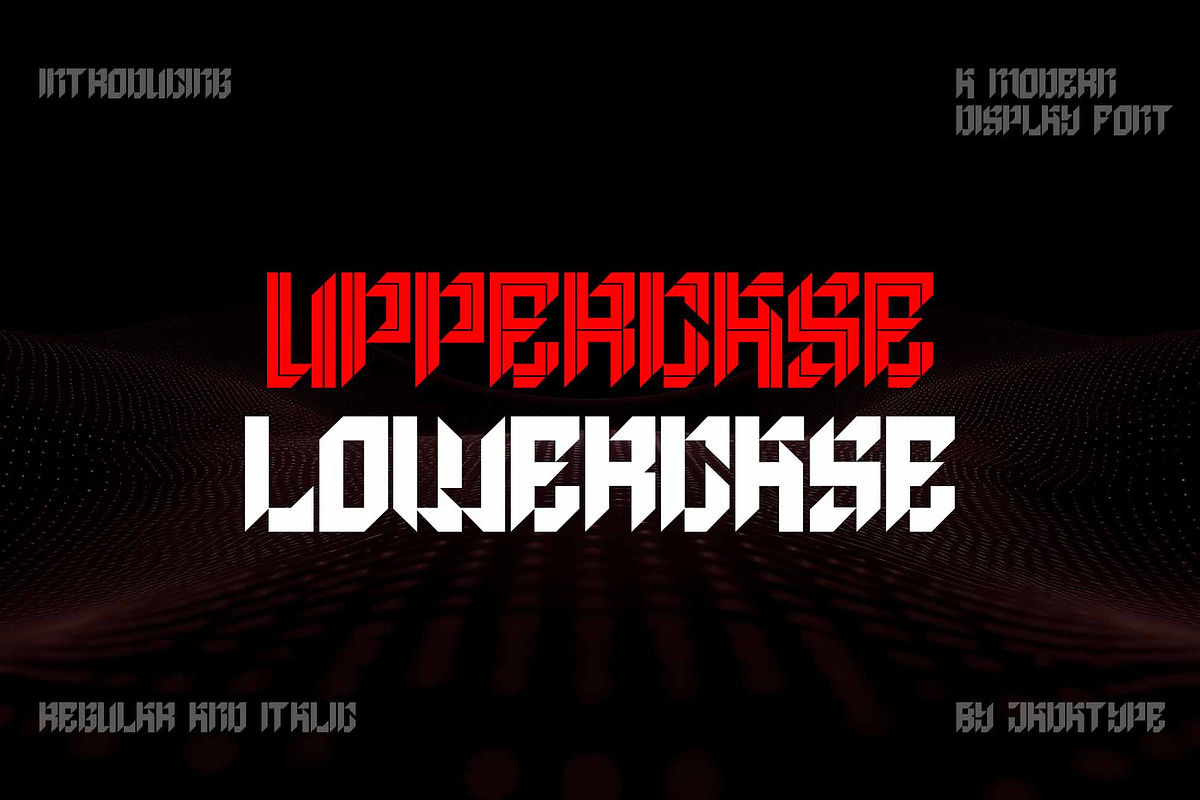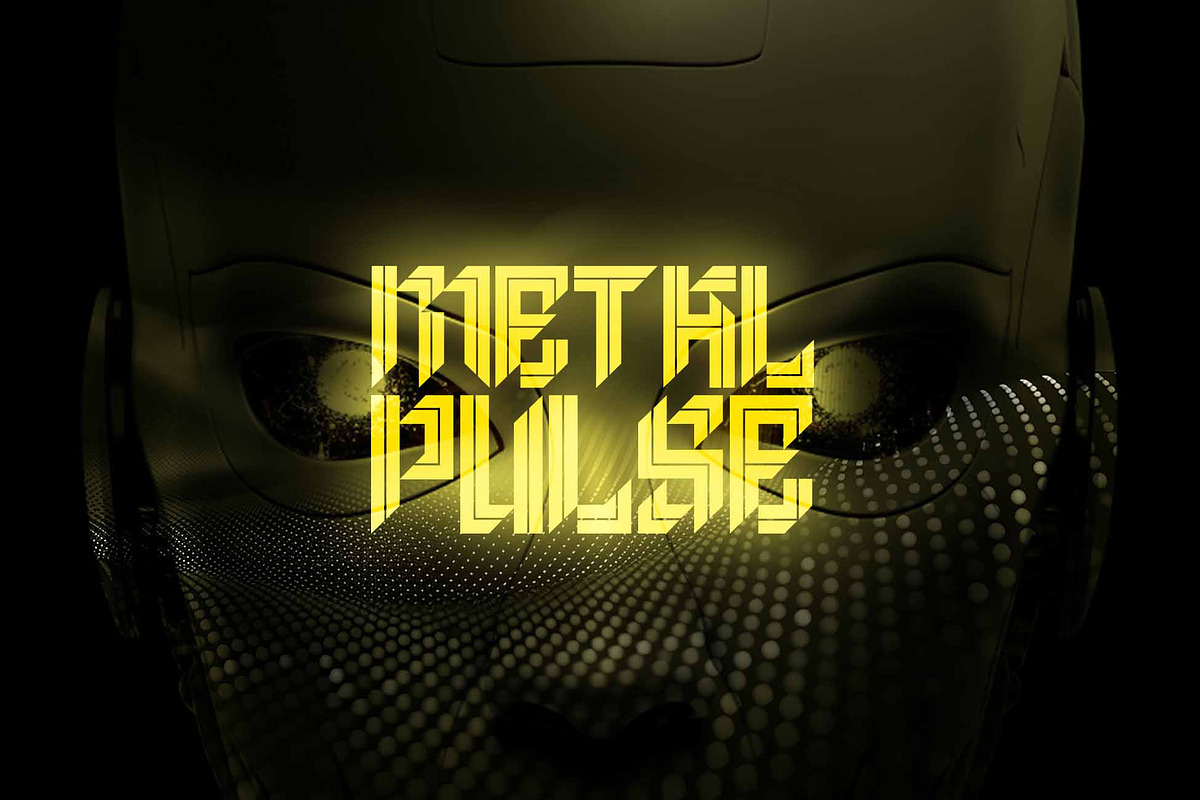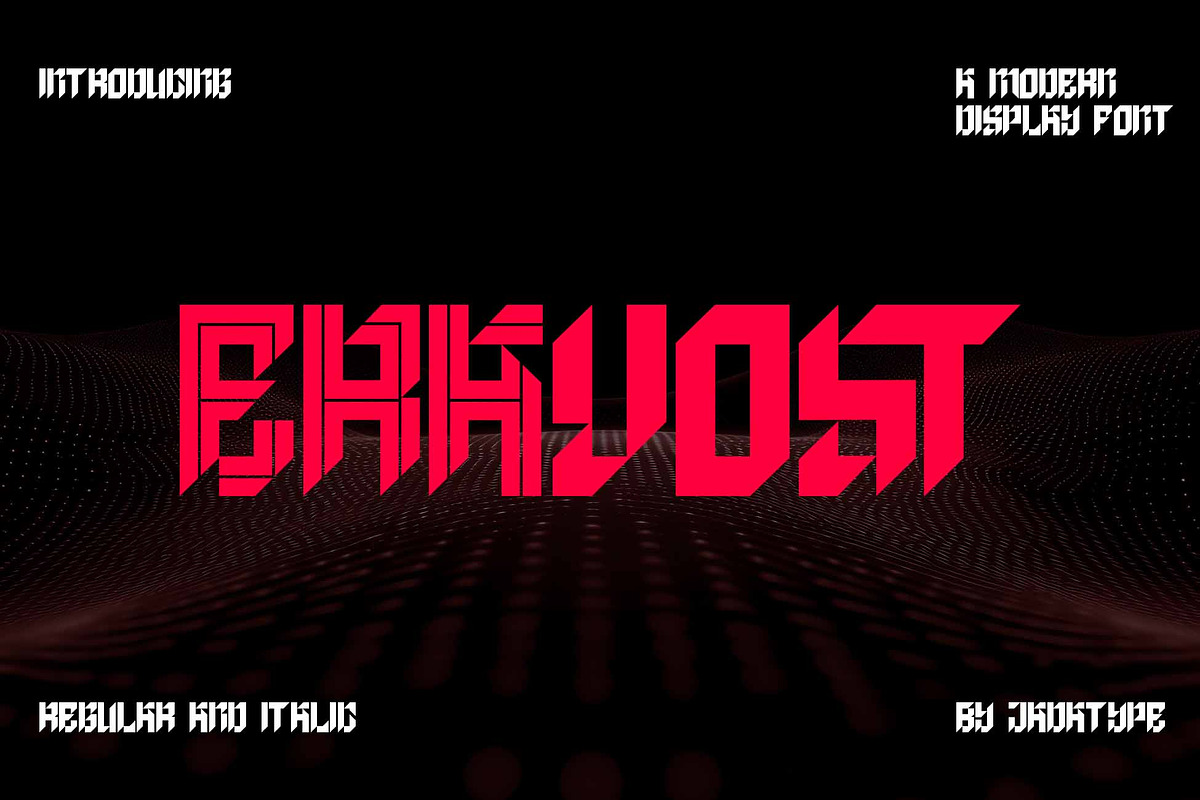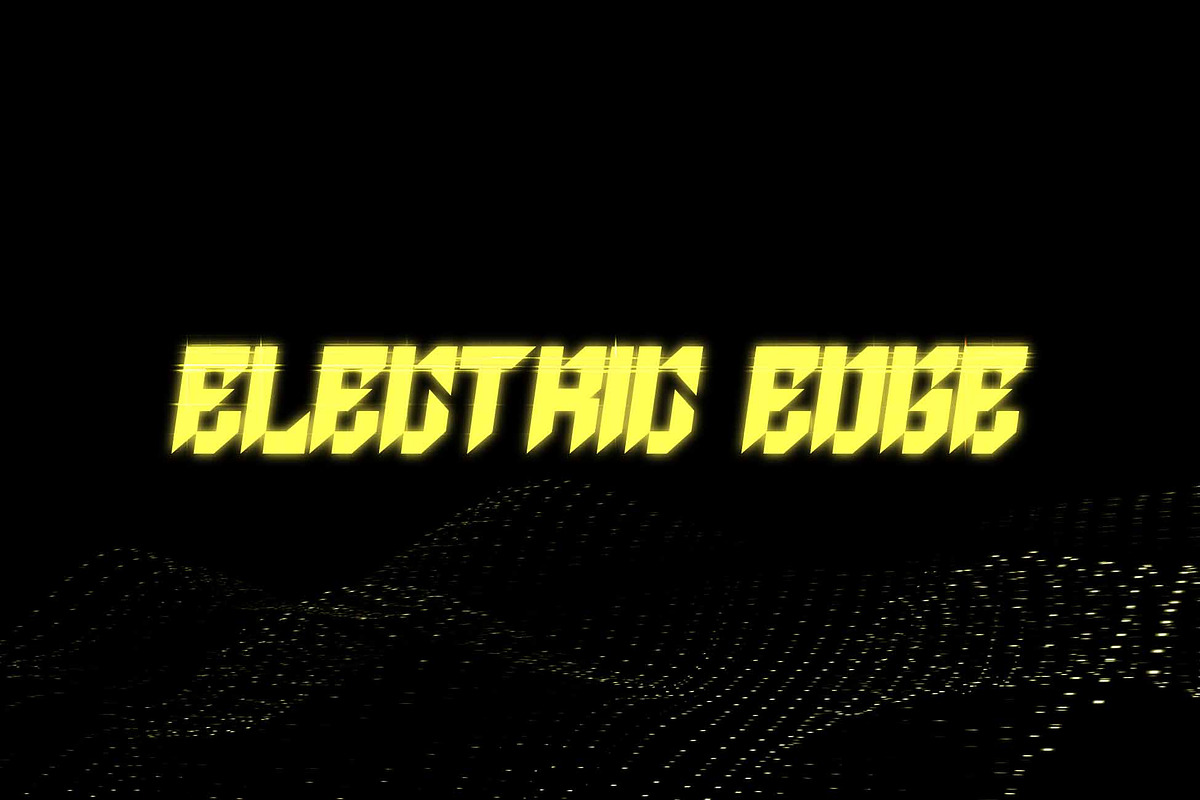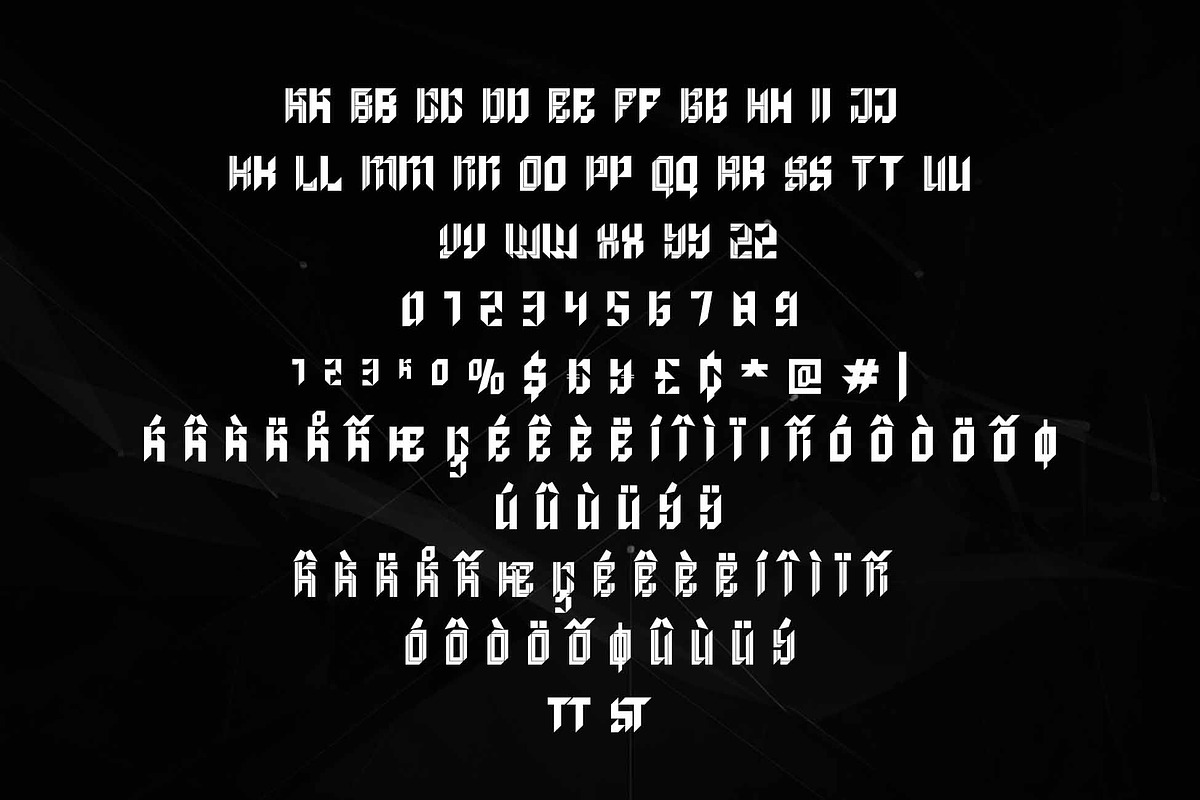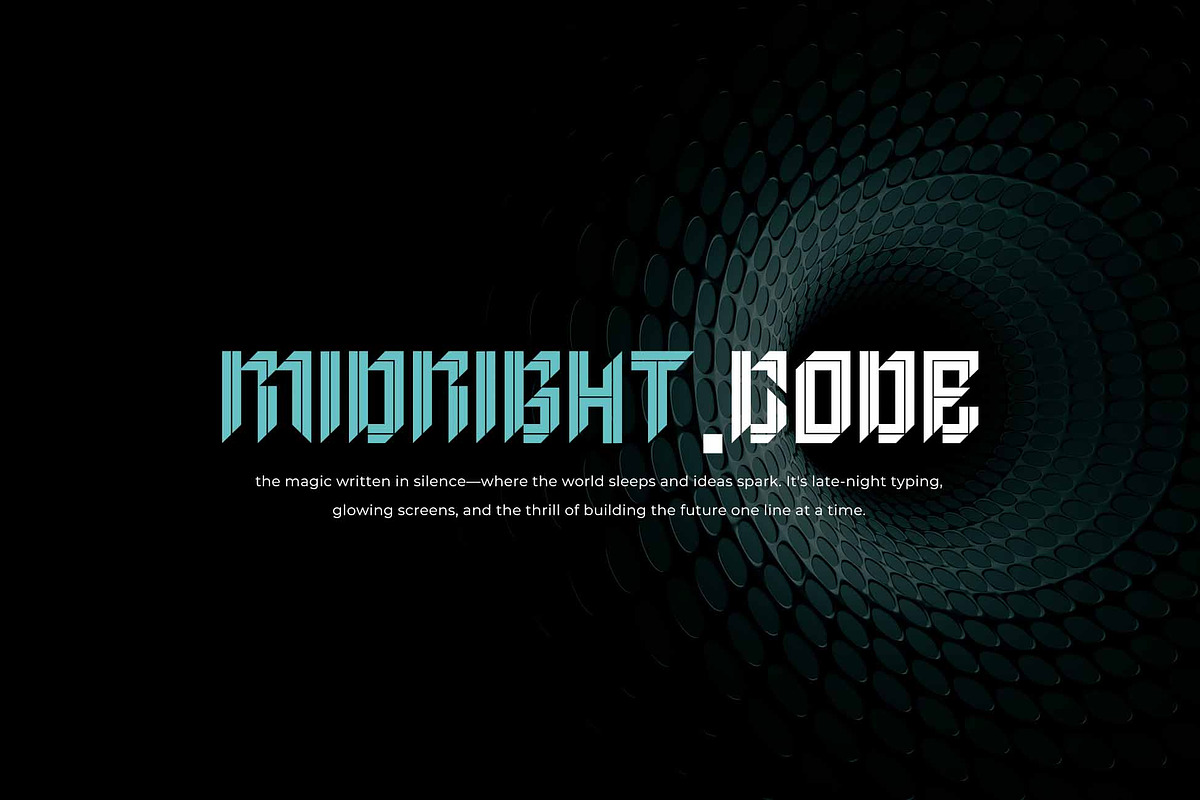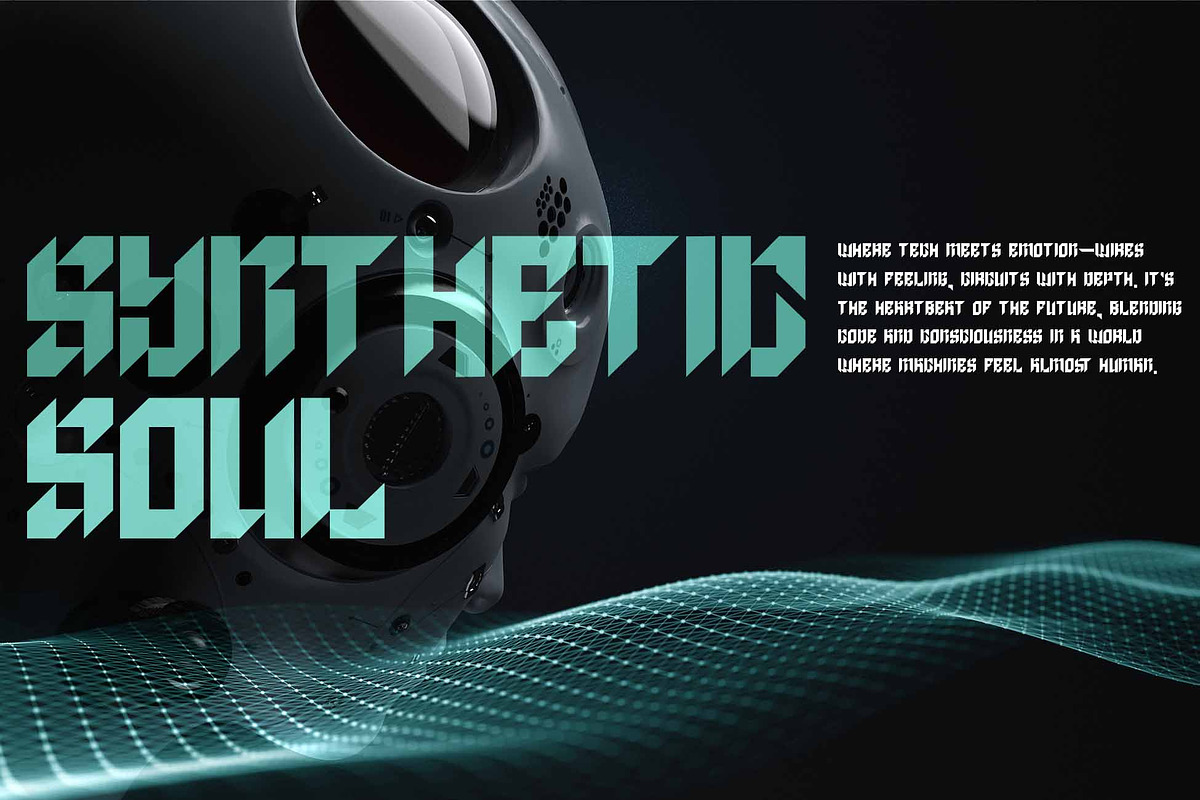
Eravost | Futuristic Display
Eravost is a All Caps Display that comes with the futuristic’s vibe. suitable for logotype, branding, social media, products, merchandise, and so on. contains standard English letters, numbers, punctuation, and several accents that support multilingualism.